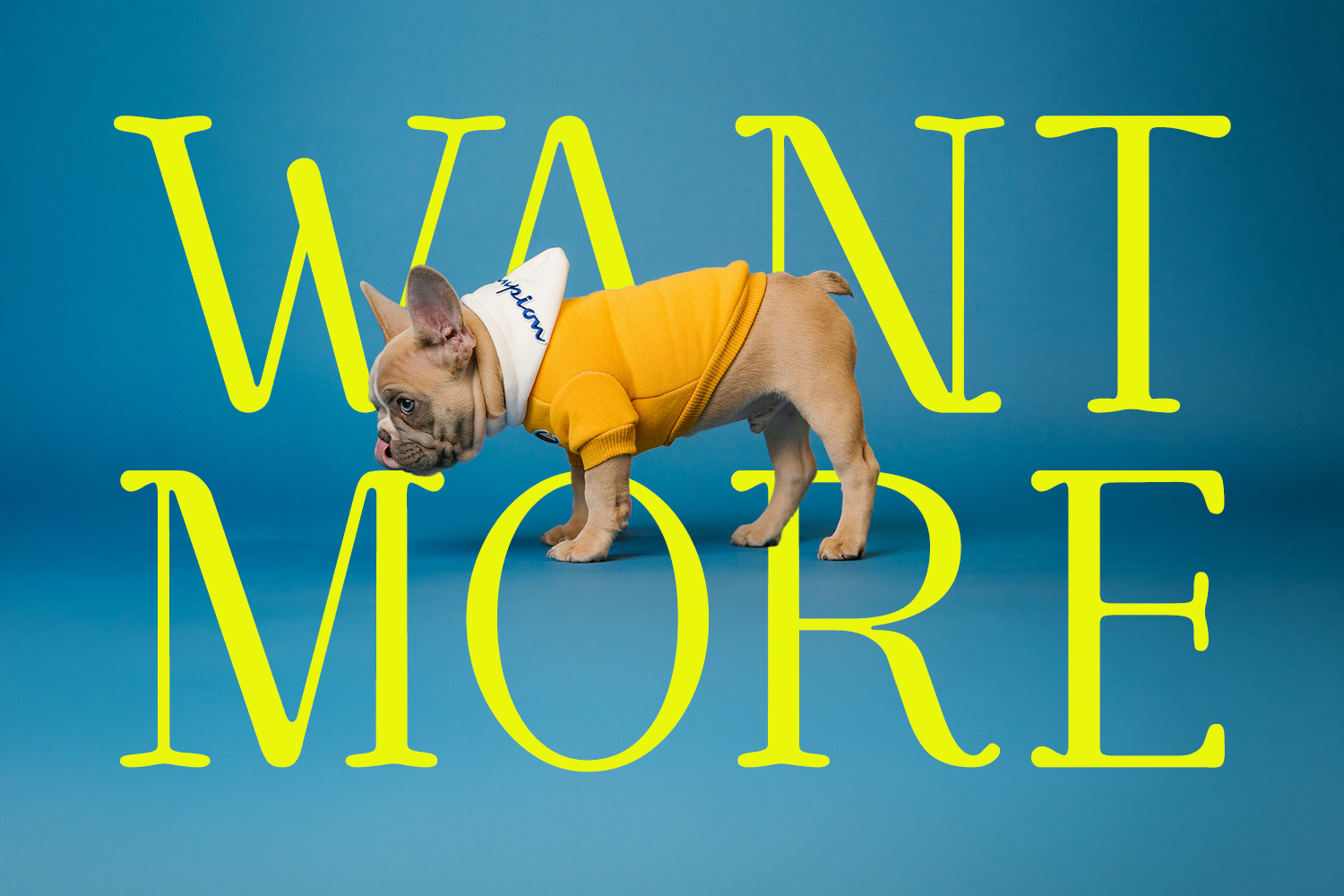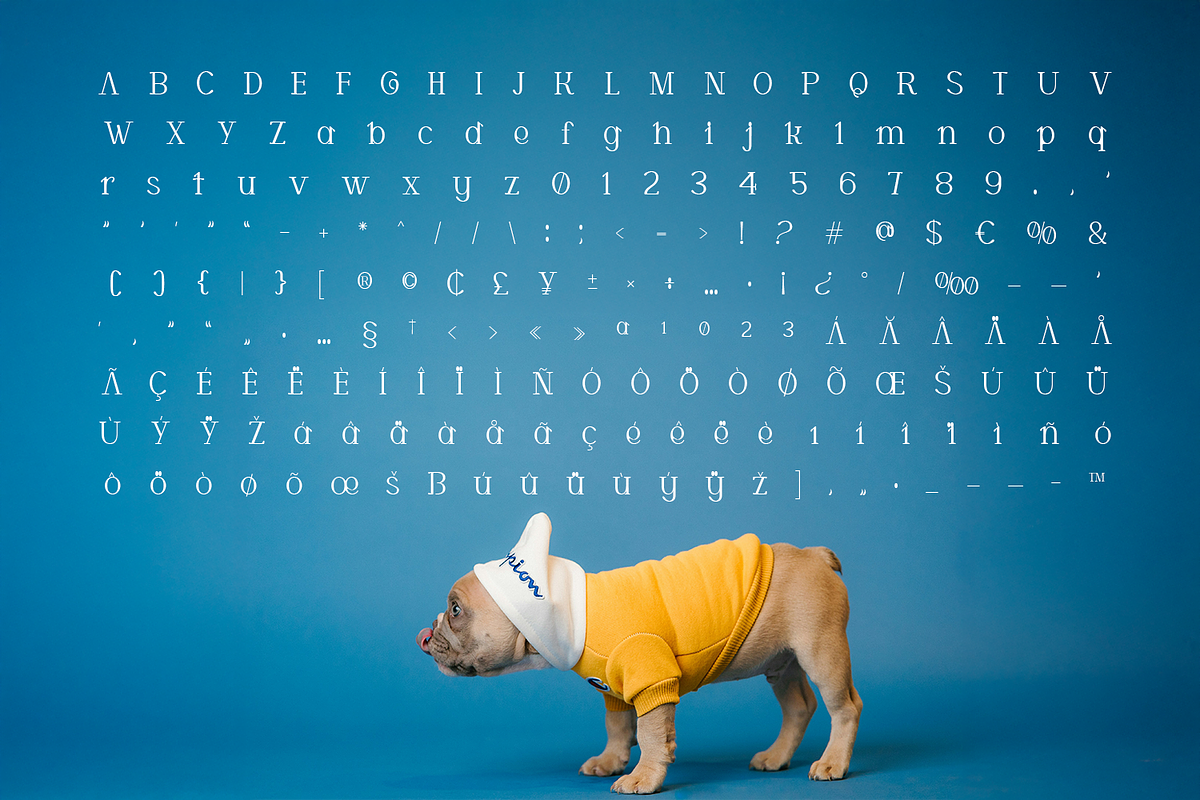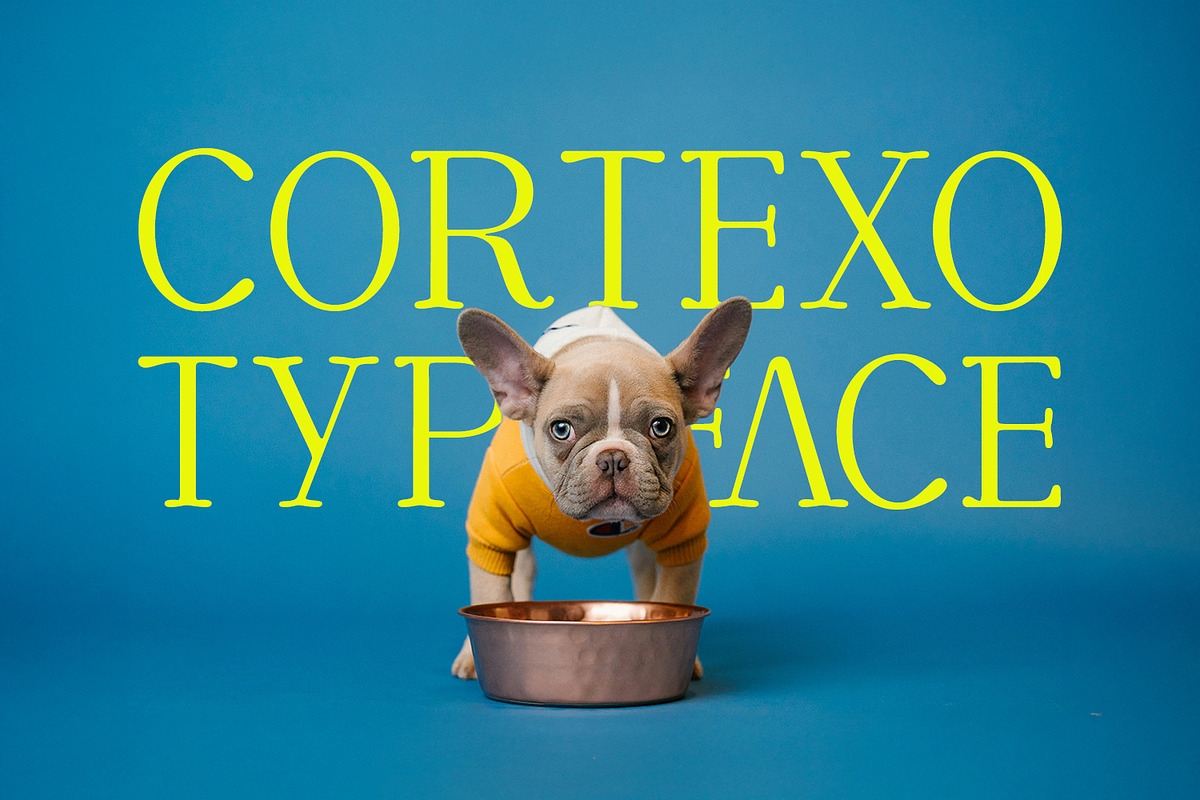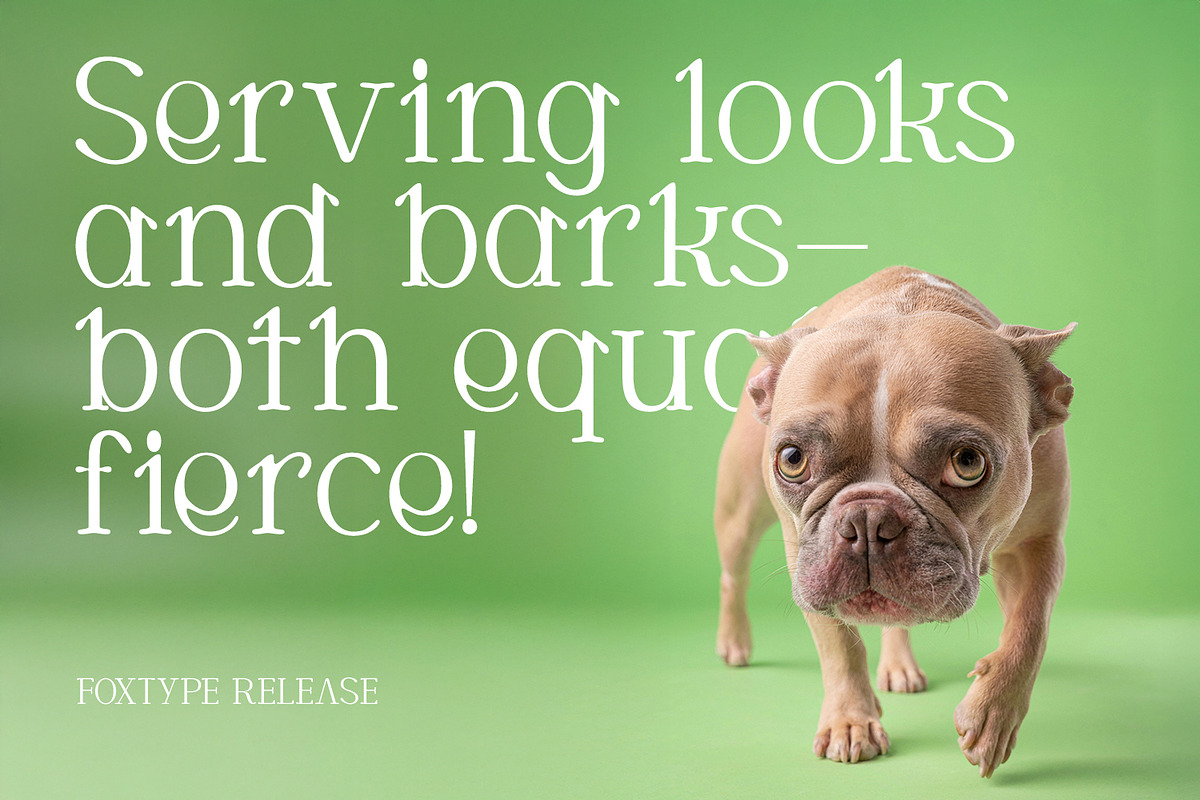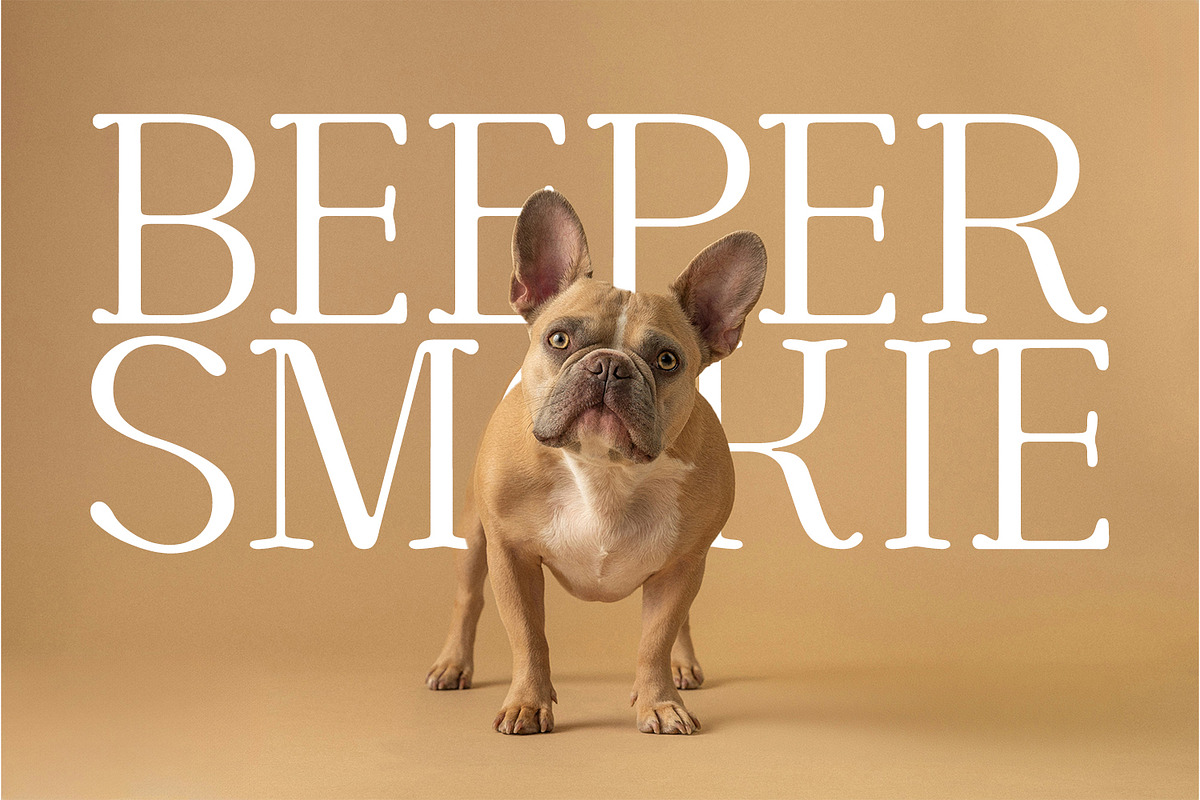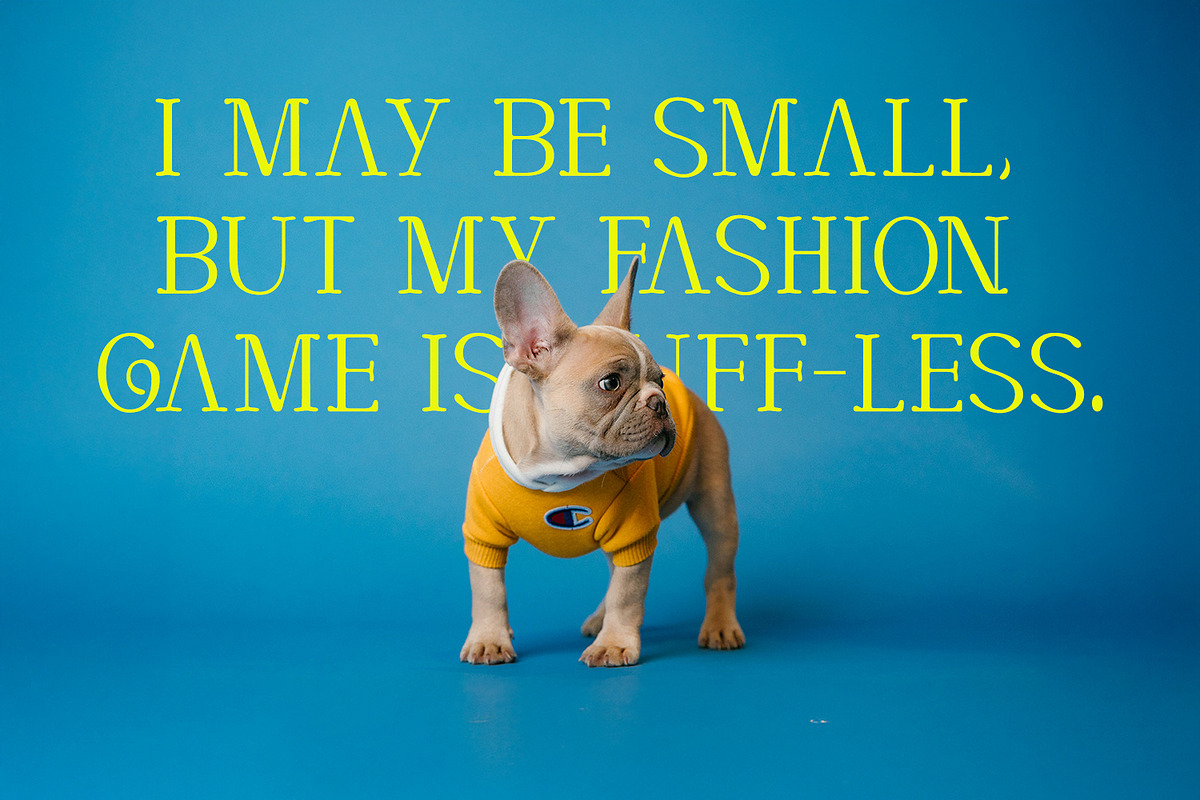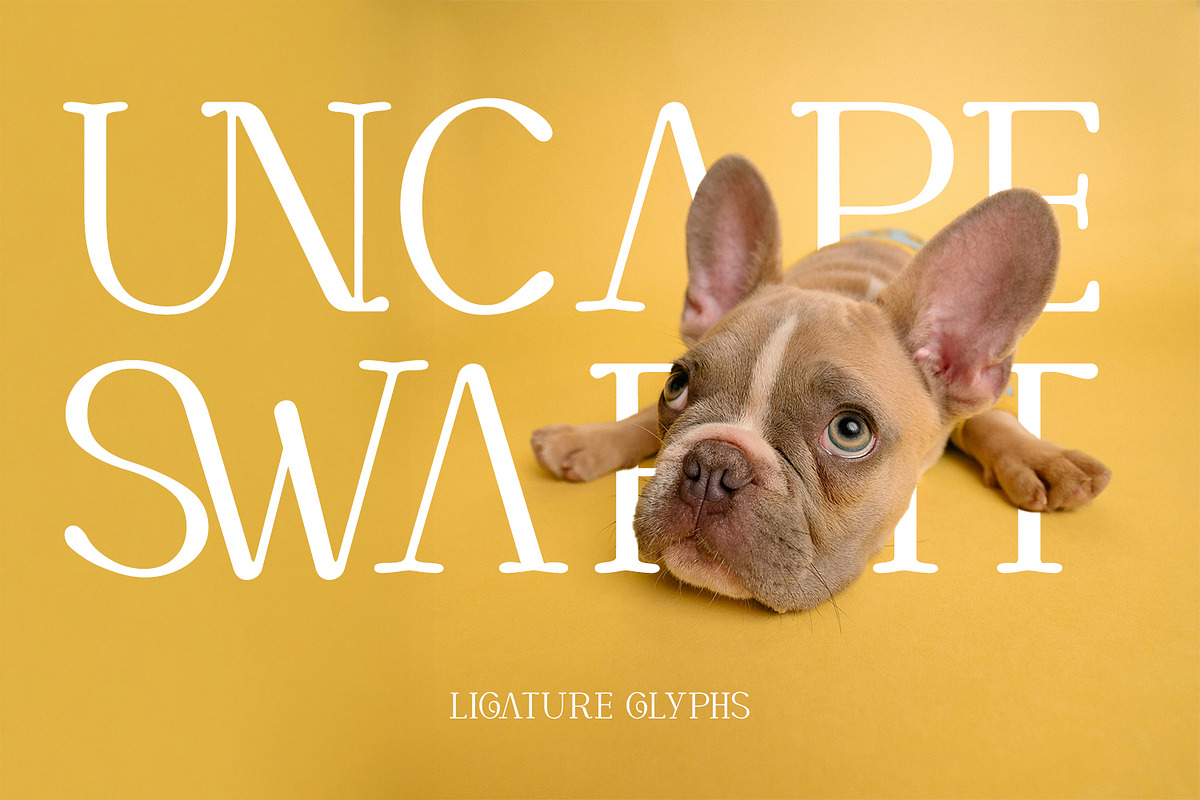
CORTEXO – Modern Serif Typeface
CORTEXO is a sophisticated thin serif font crafted with precision and elegance, designed to elevate your creative projects with a touch of modern luxury. Ideal for posters, magazine covers, high-end branding, and editorial designs, this font delivers a refined aesthetic with sharp serifs and clean lines.
Perfect for both print and digital use, CORTEXO comes in TTF, OTF, WOFF, and WOFF2 formats for maximum compatibility. Whether you’re working on a fashion spread, logo design, or luxury branding, CORTEXO offers unmatched clarity and style.
Elegant thin serif design Available in TTF, OTF, WOFF, WOFF2 Perfect for posters, covers, branding & editorial use Modern, stylish, and highly readable Bring class and precision to your next design with CORTEXO – where typography meets craftsmanship.